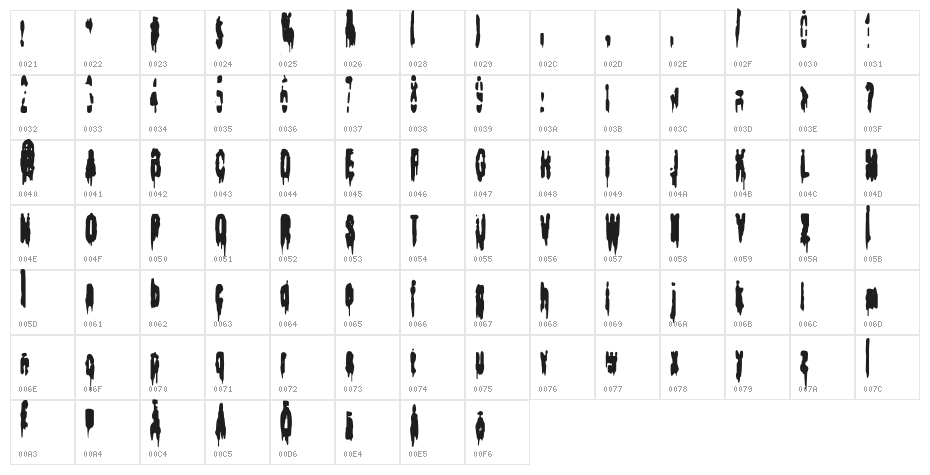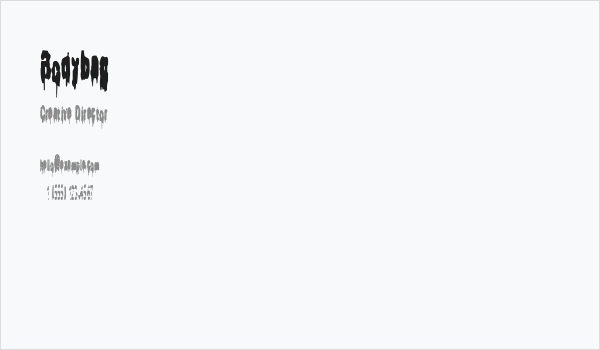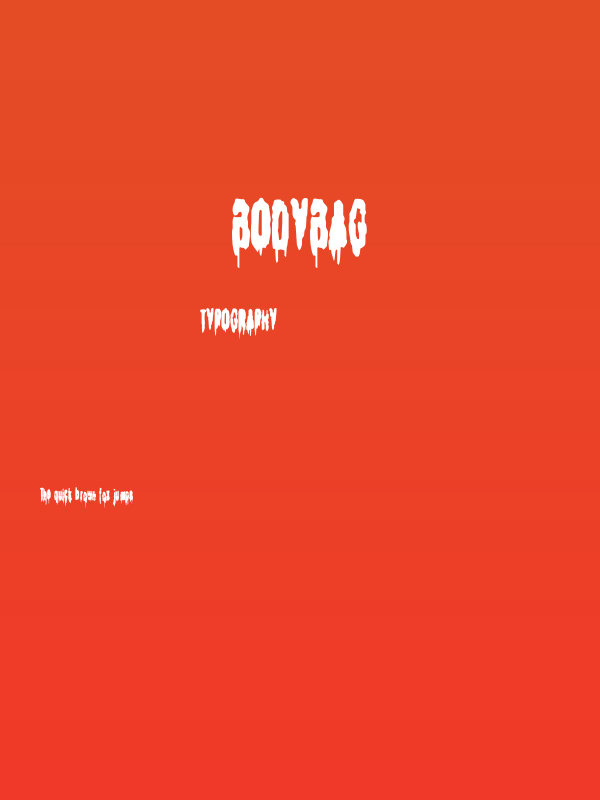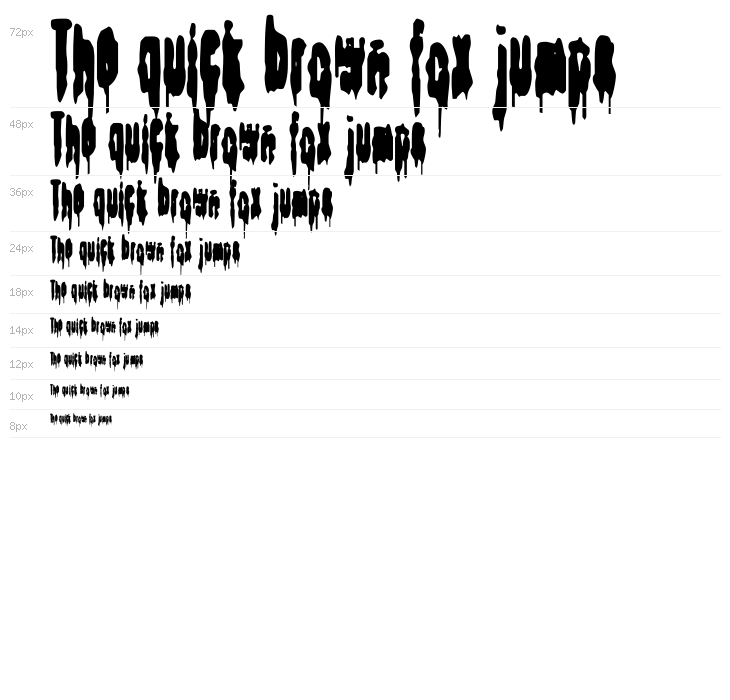
Bodybag Font
Bodybag Description
This font features a dramatic and eerie design, with each character appearing as if it is dripping or melting. The bold, thick strokes create a sense of heaviness and intensity, making it ideal for themes related to horror or mystery. The irregular edges and flowing lines give it a unique, unsettling appearance that captures attention. The uppercase and lowercase letters maintain a consistent style, enhancing the overall cohesion of the font. Numbers and special characters are also designed with the same dripping effect, ensuring uniformity across all elements.
BODYBAG UPPERCASE
BODYBAG LOWERCASE
BODYBAG OTHER CHARS
| Proposed Projects | Ideal for Halloween posters, horror movie titles, haunted house flyers, and spooky event invitations. |